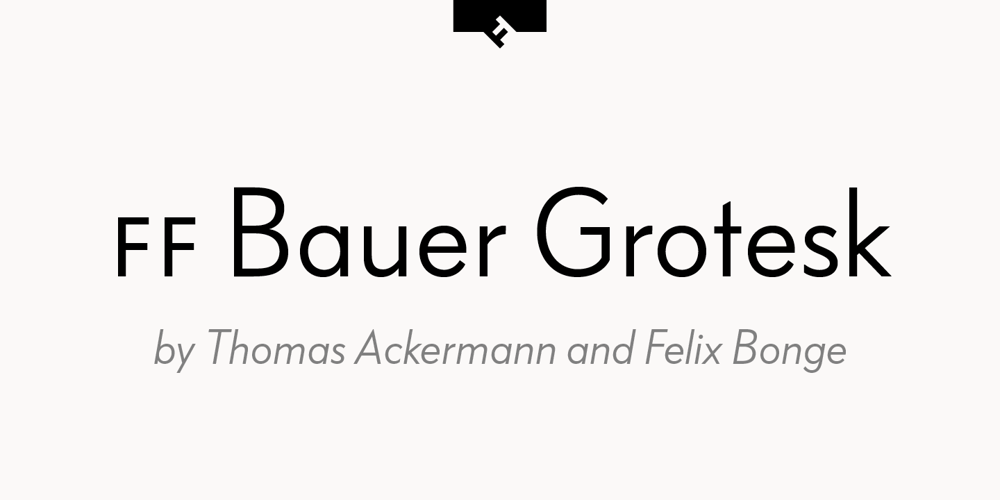
FF Bauer Grotesk Font Family was designed by Felix Bonge, Thomas Ackermann and published by FontFont. FF Bauer Grotesk contains 29 styles and family package options. FF Bauer Grotesk is a revival of the metal type Friedrich Bauer Grotesk, released between 1933 and 1934 by the foundry Trennert & Sohn in Hamburg Altona, Germany. The geometric construction of the typeface, infused with the art déco zeitgeist of that era, is closely related to such famous German designs as Futura, Erbar, Kabel and Super Grotesk that debuted a few years earlier. However, Bauer Grotesk stands out for not being so dogmatic with the geometry, lending the design a warmer, more homogenous feeling. The oval “O” is a good example of that, as well as characteristic shapes like the capital M or the unconventionally differing endings of “c” and “s” which make for a less constructed look. Watch the FF Bauer Grotesk introduction video on Vimeo